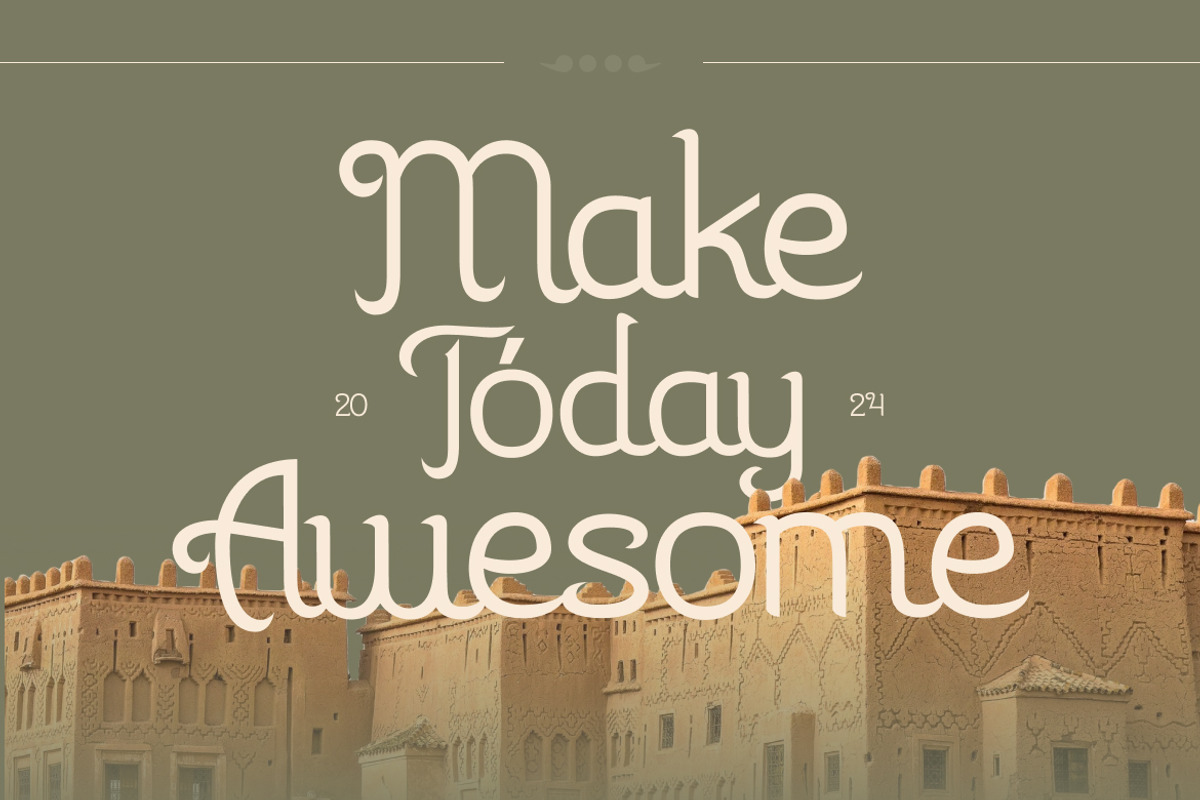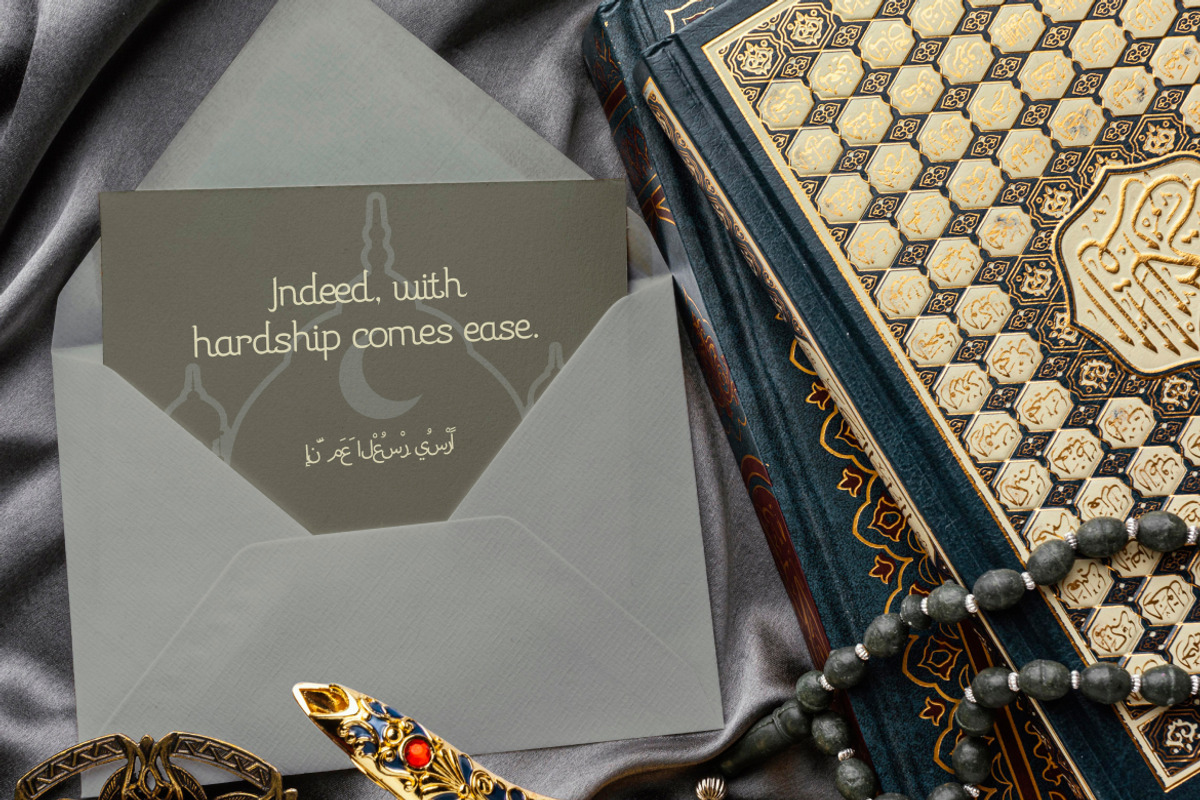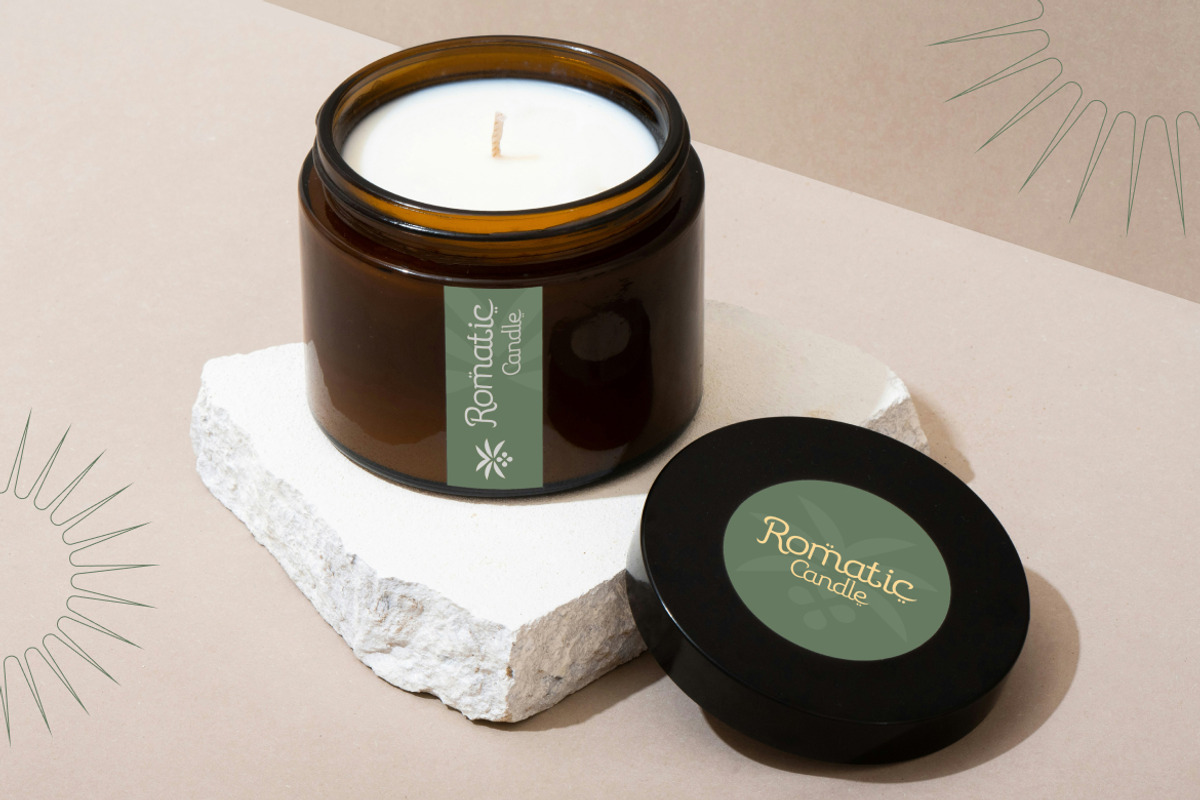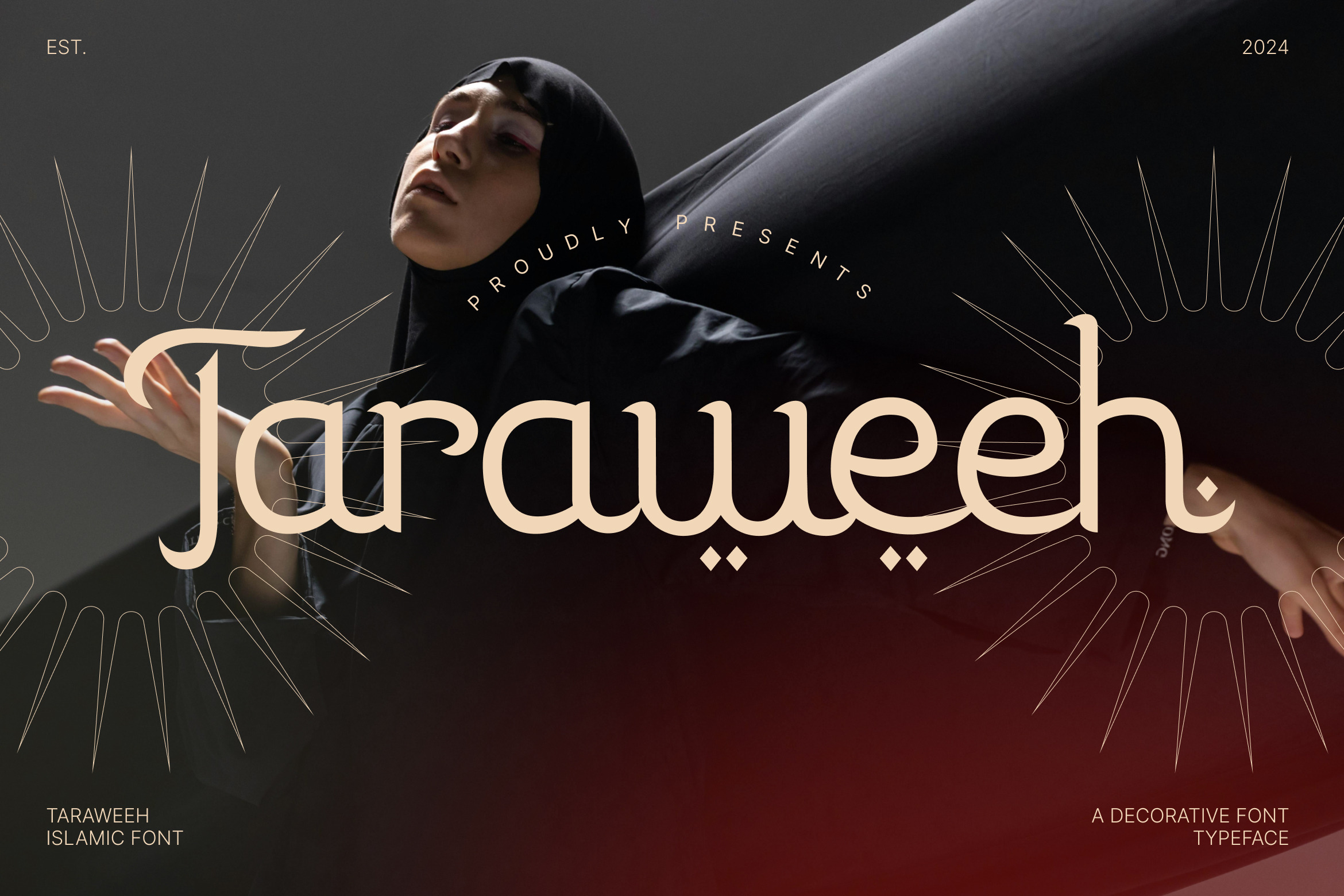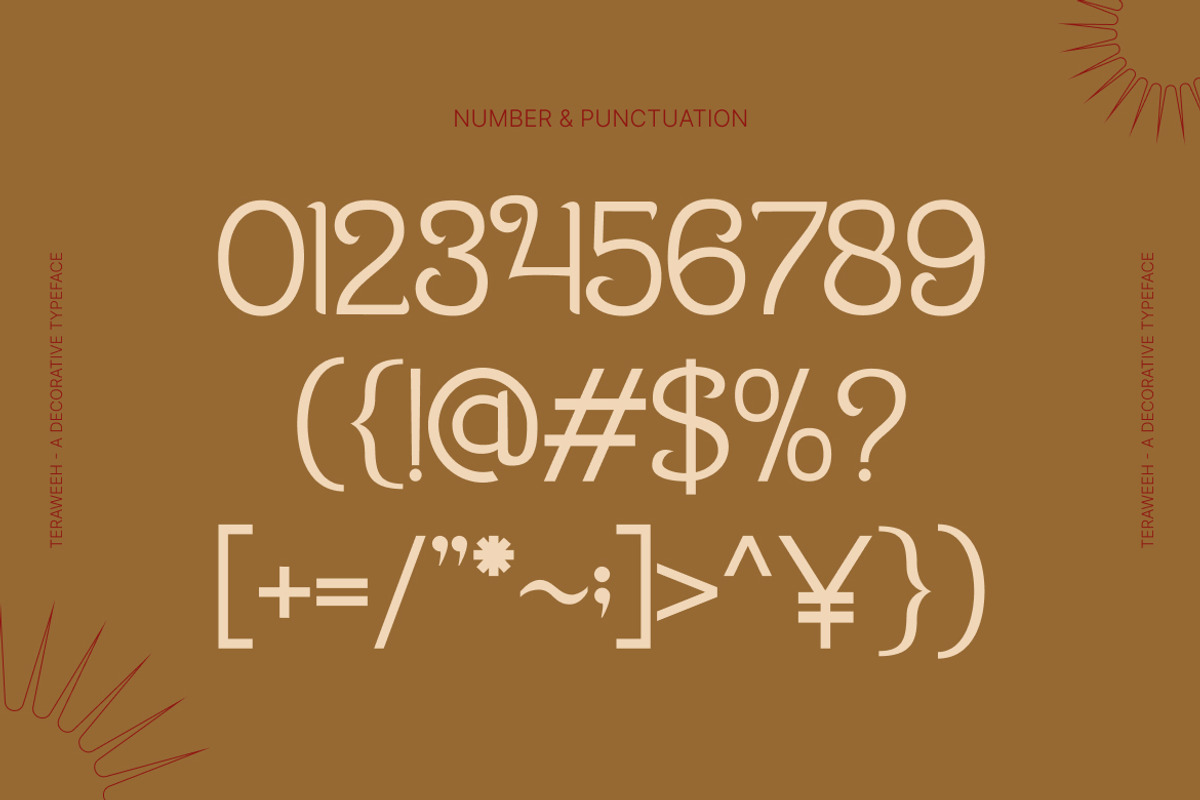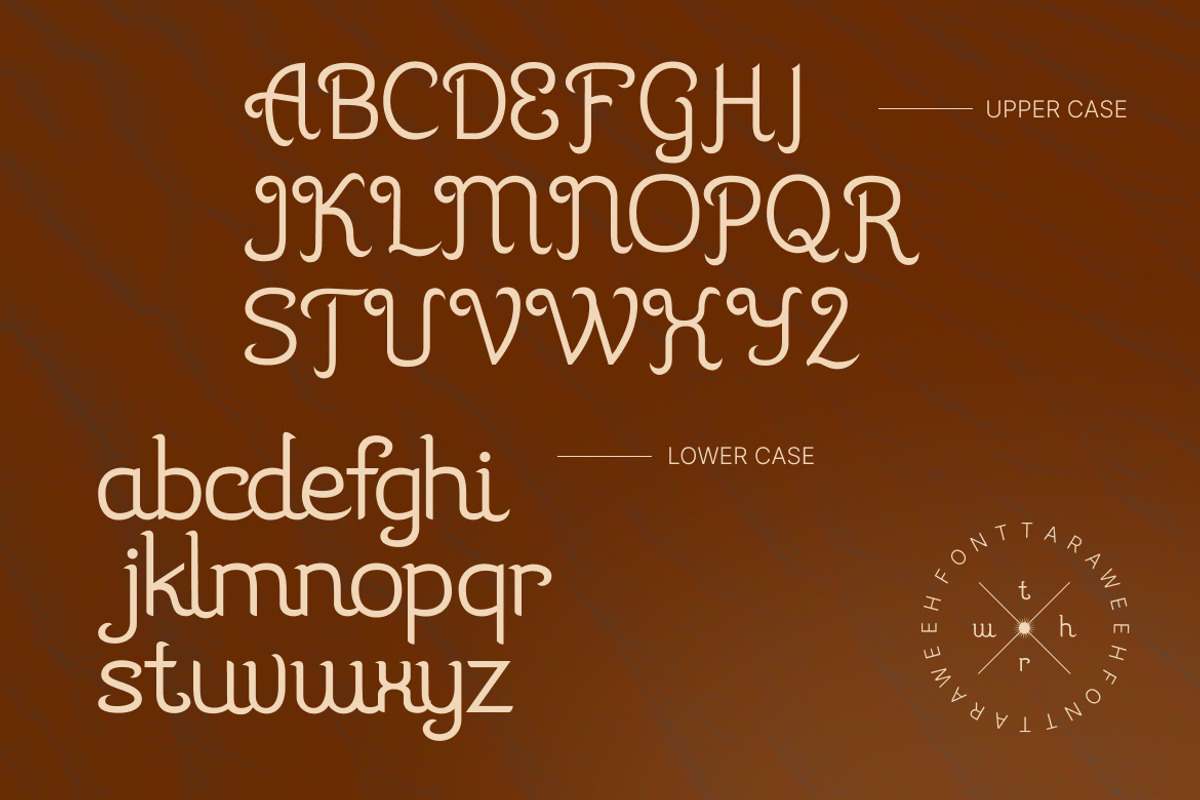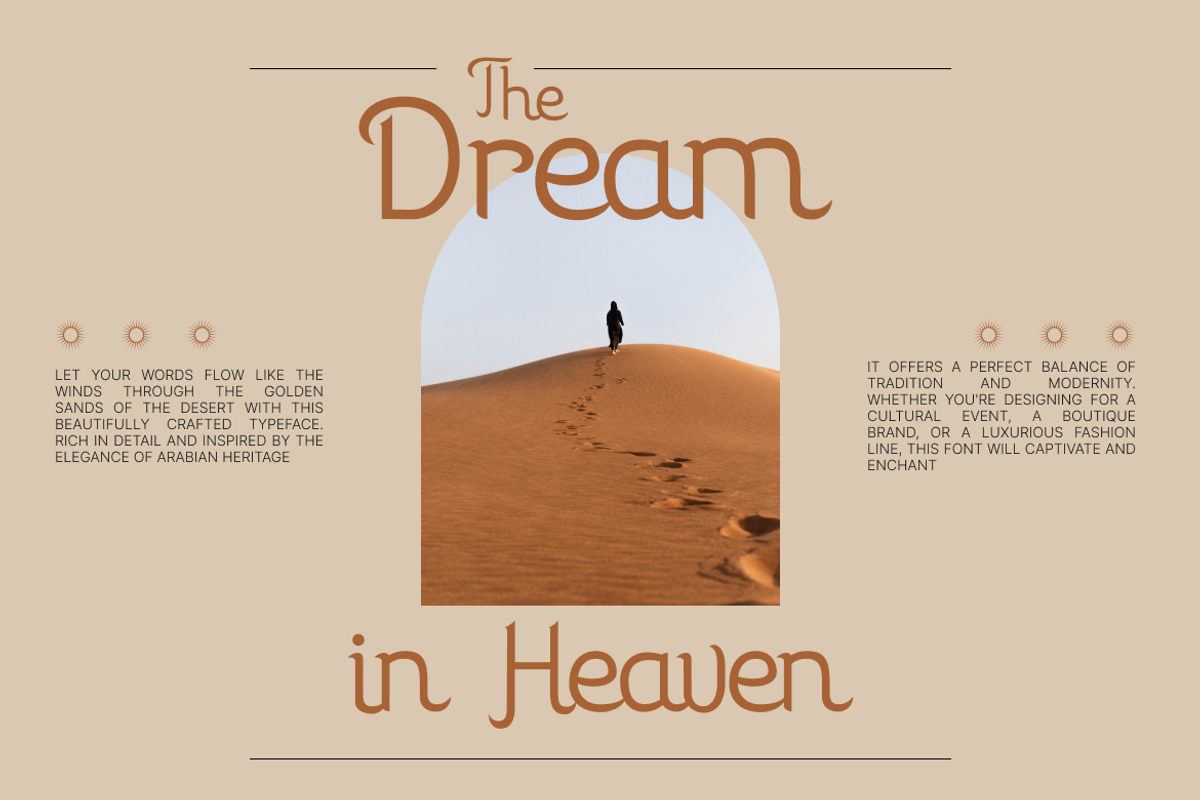
Taraweeh - Modern Islamic Typeface
Taraweeh is a decorative Islamic font that combines the elegance of traditional Arabic-inspired forms with the clarity and refinement of modern display design. Featuring unique diacritic-style dots, flowing curves, and high-contrast strokes, Taraweeh adds a sense of cultural richness to any project. It includes uppercase and lowercase Latin alphabets, allowing you to express spiritual, cultural, or festive themes in global contexts without needing Arabic script.
Ideal for Ramadan campaigns, Eid greetings, boutique logos, fashion branding, or cultural posters, Taraweeh captures the poetic rhythm of Islamic artistry. Its balanced design offers both visual intricacy and readability, making it perfect for packaging, event invitations, editorial titles, and social media graphics. Whether you aim to honor heritage or infuse your project with ornamental depth, Taraweeh is crafted to enchant and inspire.
- Arabic-inspired Latin letterforms with culturally infused styling
- Decorative swashes and dot accent, traditional diacritic elements
- Smooth, flowing curves blended with structured serif elements
- High contrast strokes enhance visual elegance and clarity
- Ideal for ornamental headings, cultural branding, and celebration themes
- Brand identity designs with cultural or spiritual storytelling
- Boutique product packaging with traditional or luxury vibes
- Editorial layouts for cultural magazines and heritage publications
- Social media content focused on Islamic art, fashion, or spirituality
- Visual branding for halal cosmetics, modest fashion, or artisan goods
- Full Cyrillic and Latin multilingual support
Infuse your visuals with spiritual beauty Taraweeh speaks with heritage, detail, and timeless charm